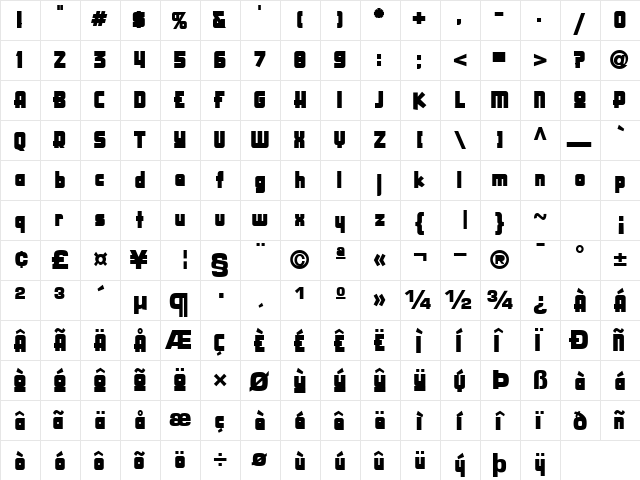
CreativeThoughtText124 Bold
Design Context for CreativeThoughtText124 Typeface
CreativeThoughtText124 offers clean, dependable letterforms without strong stylistic allegiance, making it a practical choice for designers who need flexibility. The heavy weight commands attention and anchors typographic hierarchies.